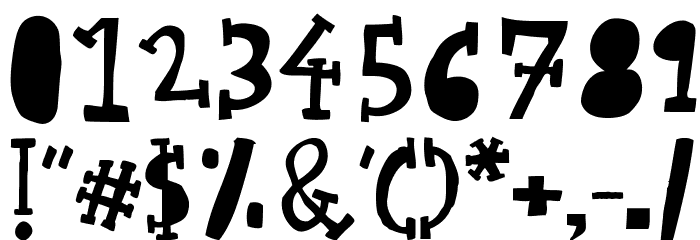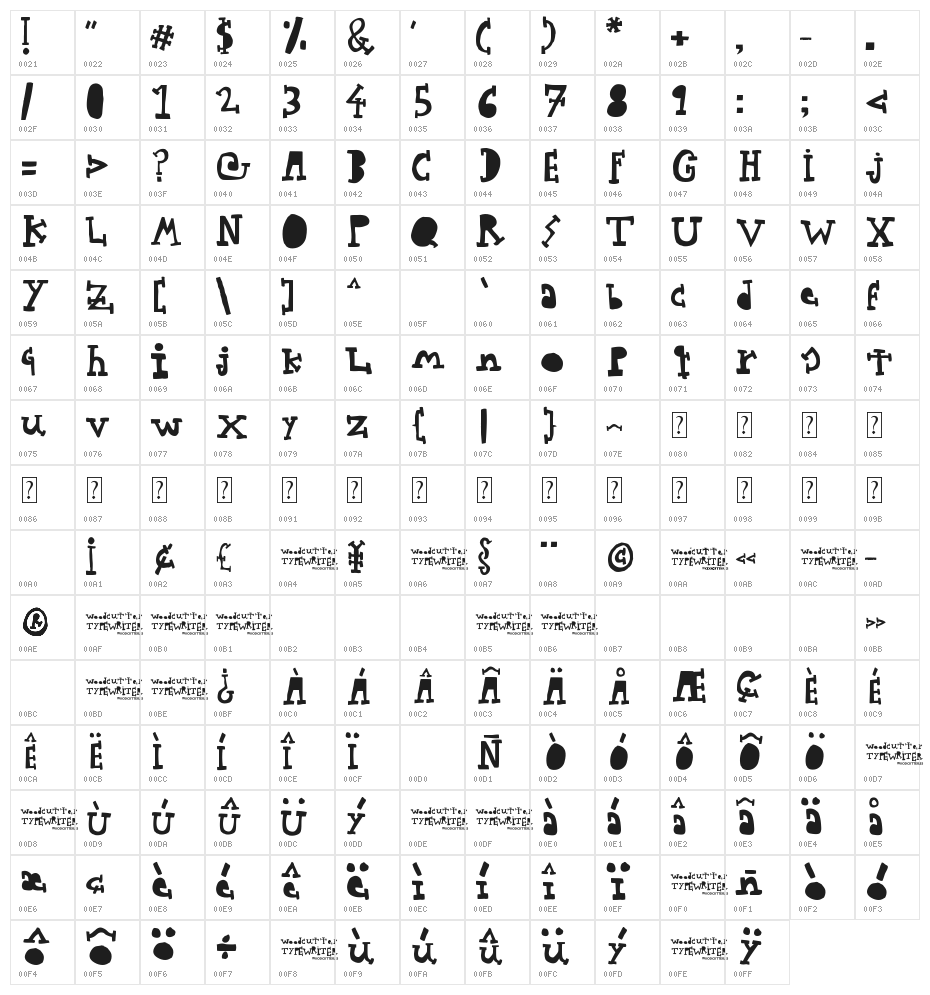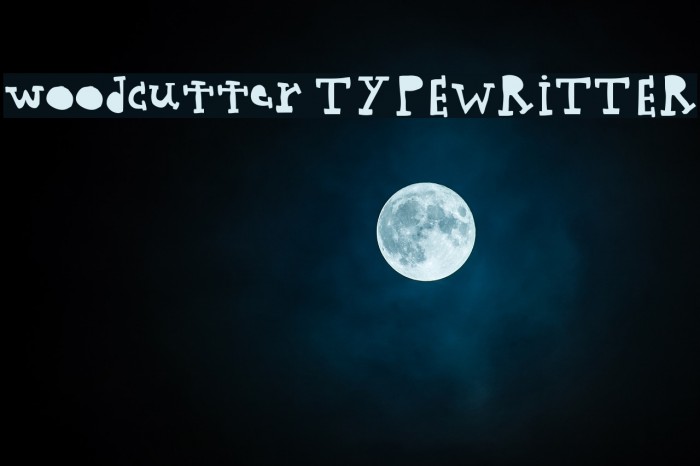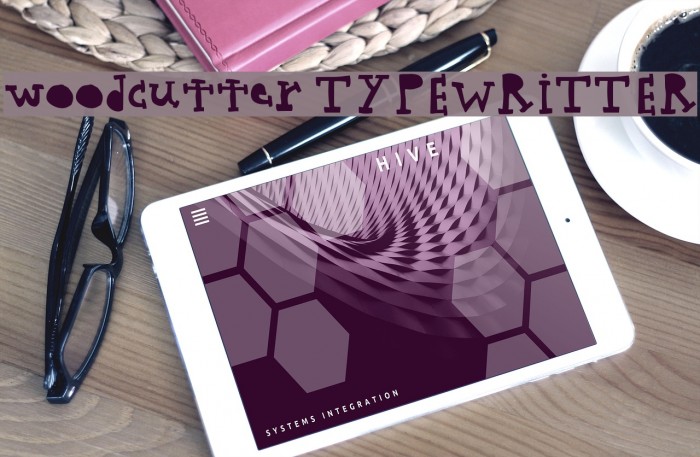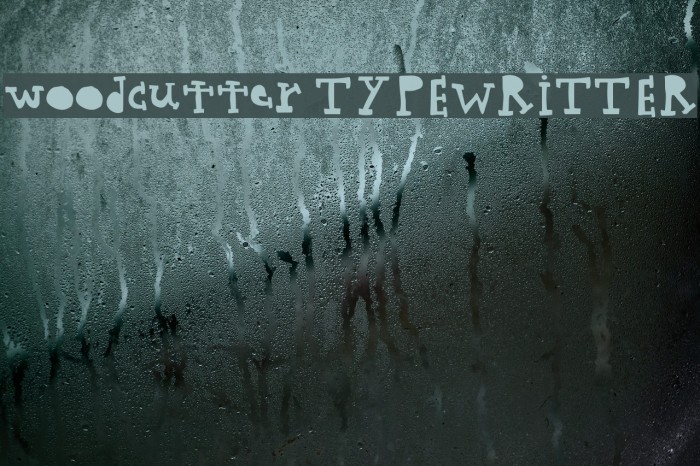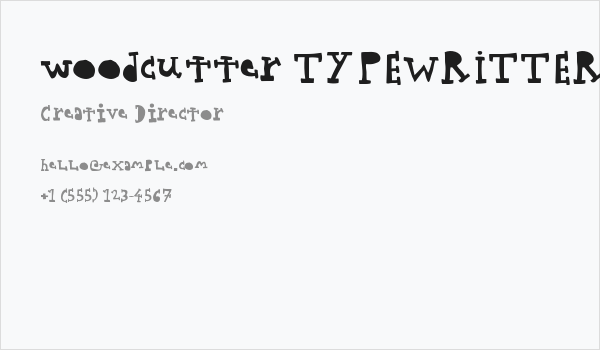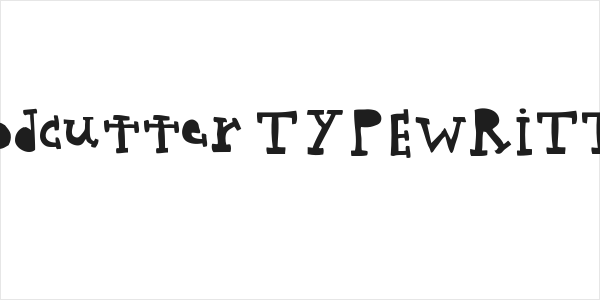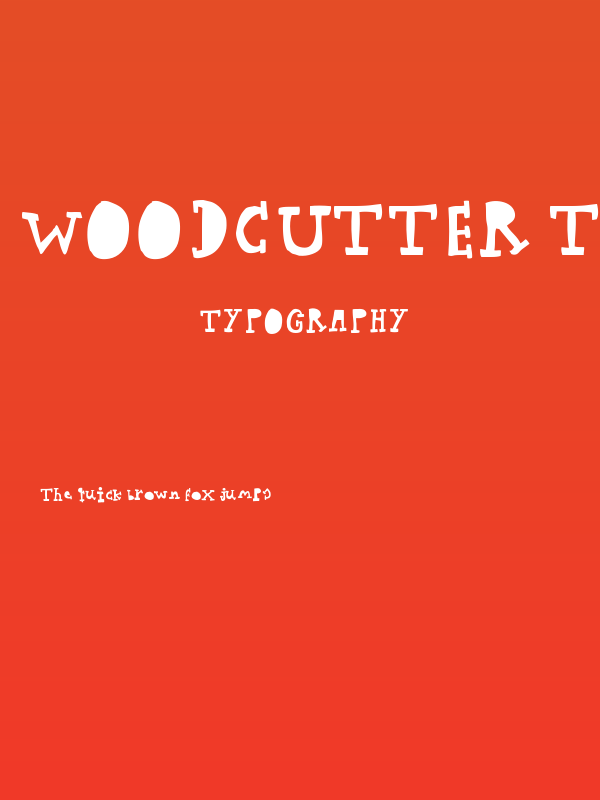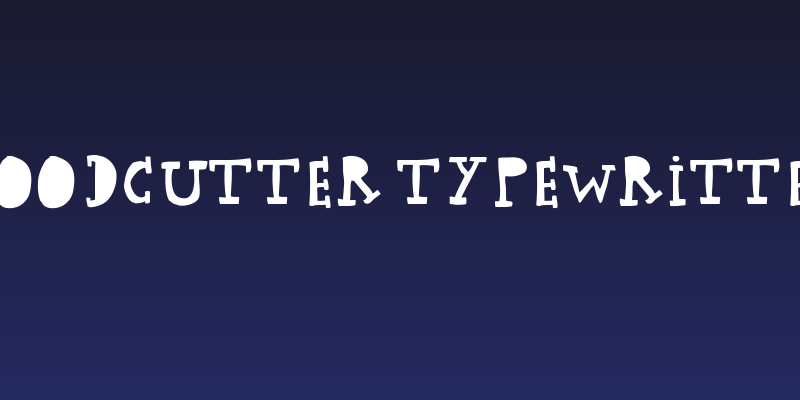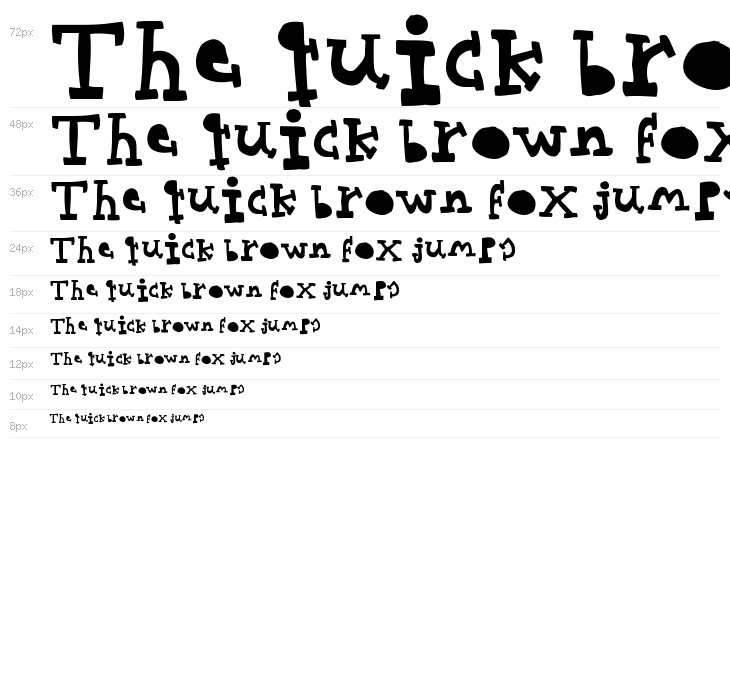
woodcutter TYPEWRITTER Font
woodcutter TYPEWRITTER Description
This font features a playful and quirky design with uneven, bold strokes that give it a hand-drawn appearance. The characters are irregular in shape, adding a whimsical and artistic touch. The uppercase and lowercase letters maintain a consistent style, with exaggerated serifs and varying line thicknesses. Numbers and special characters follow the same playful aesthetic, making the font suitable for creative and informal projects. Its unique style captures attention and adds a fun, dynamic element to any design.
| Overall Style | Whimsical, Artistic |